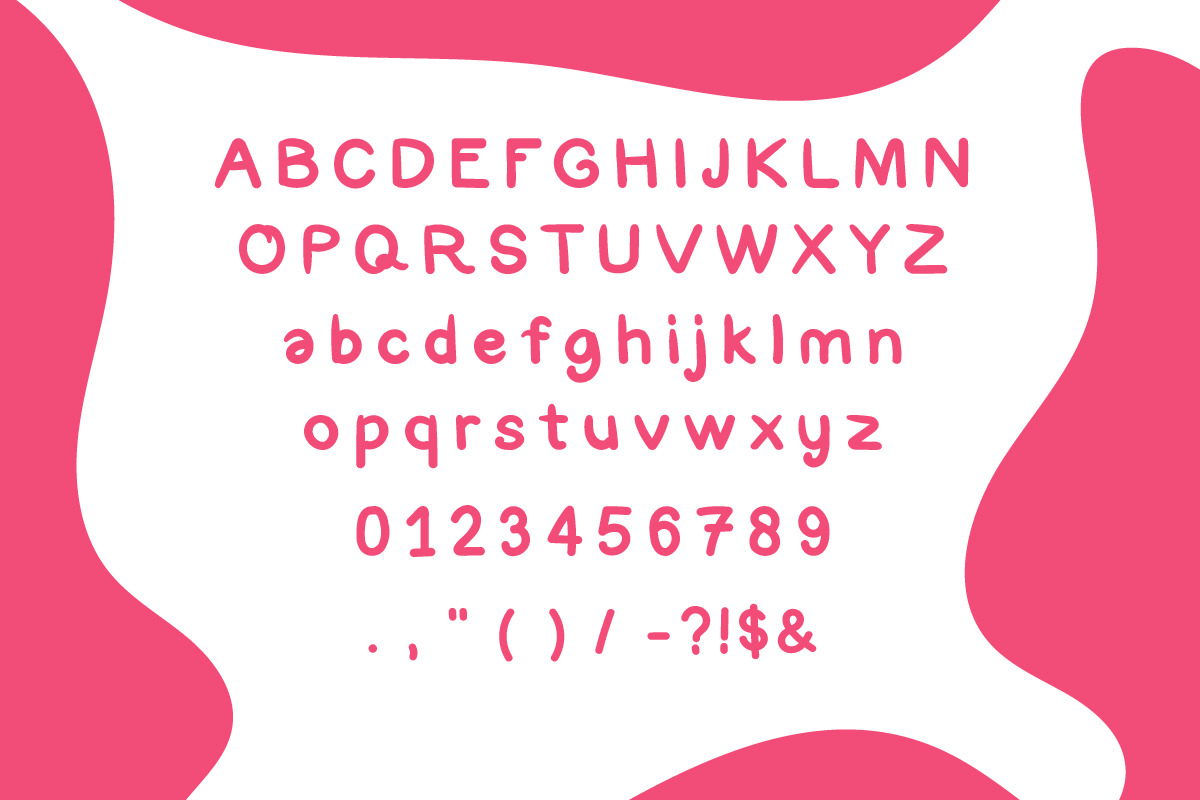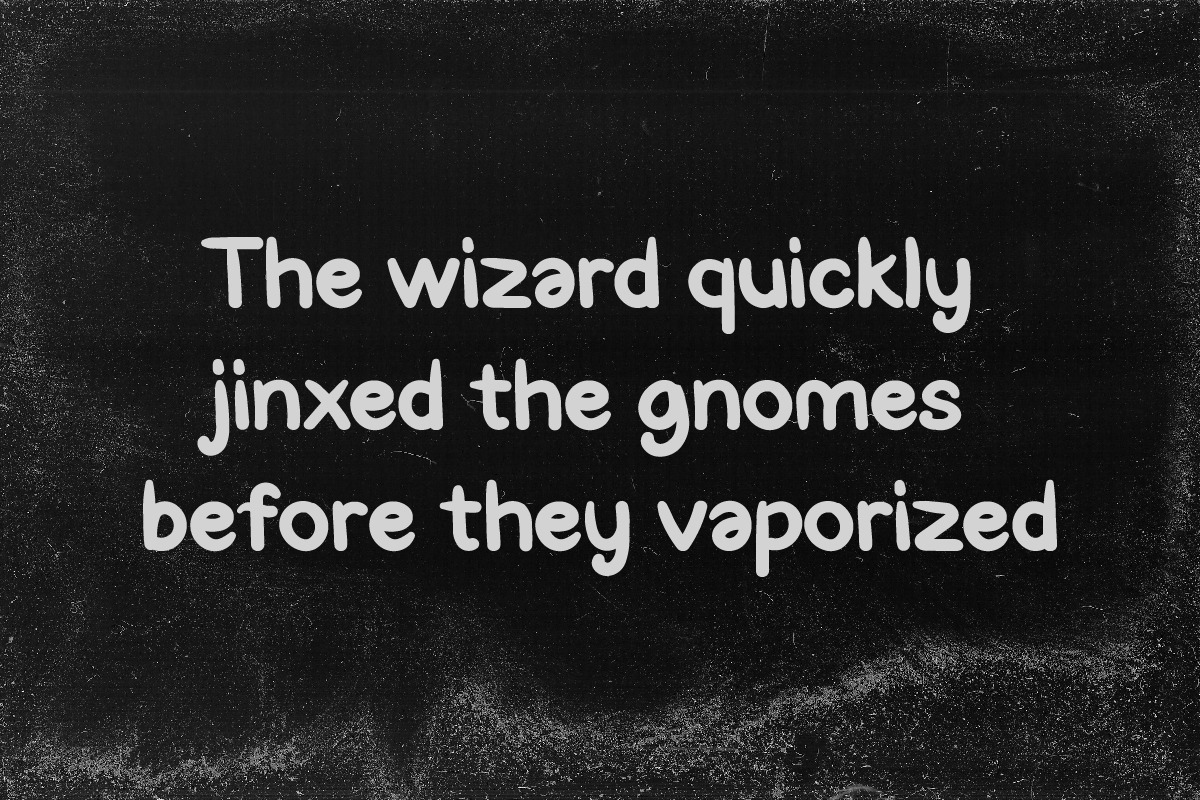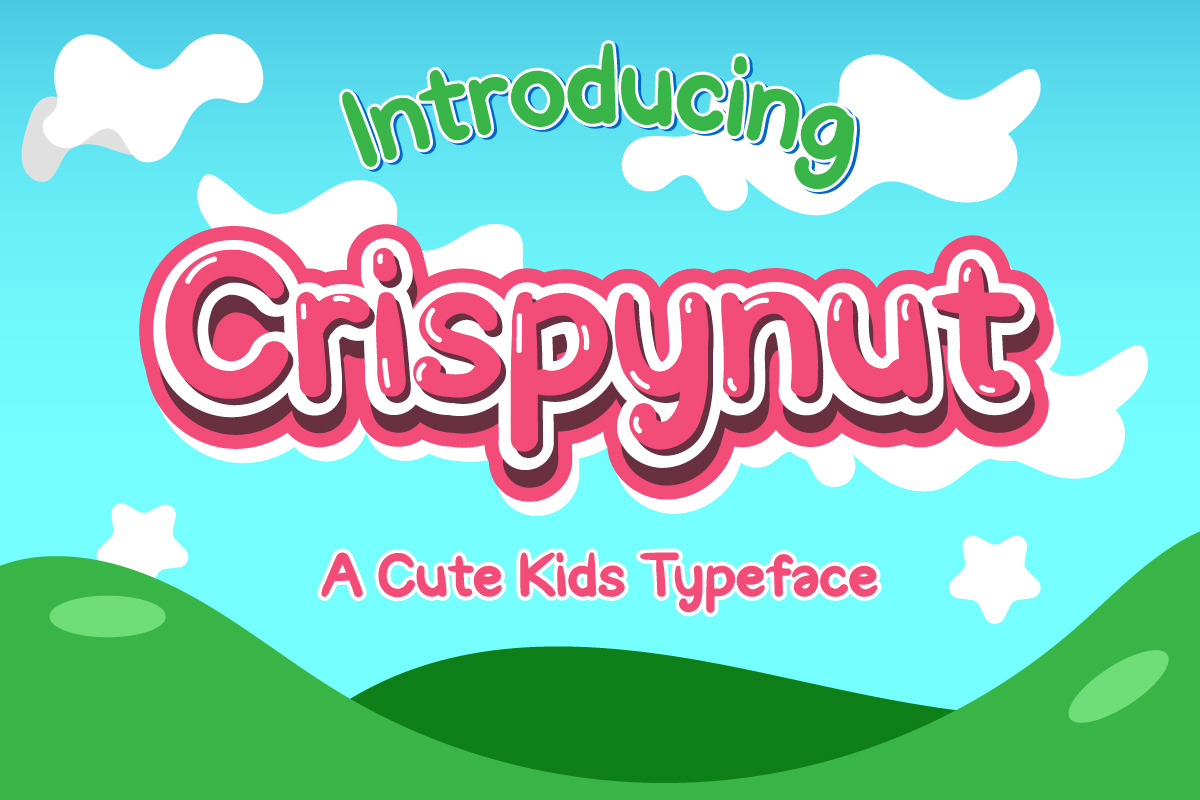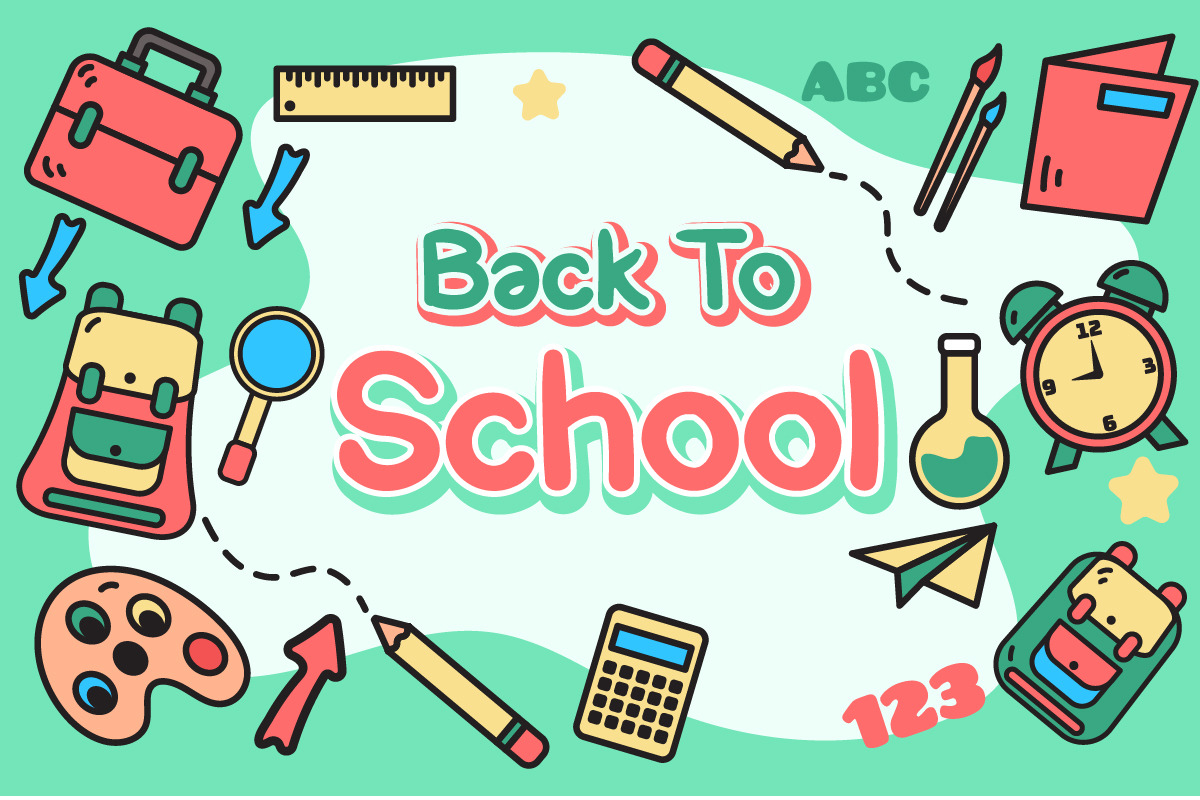
Crispynut Kids Cute Typeface
Crispynut Kids Cute Font
This is our newest font, which is called CRISPYNUT, this font is inspired by the old vintage designs.
CRISPYNUT is a great font for kids branding, packaging, posters, titles, book covers, flyers, t-shirt designs and etc.